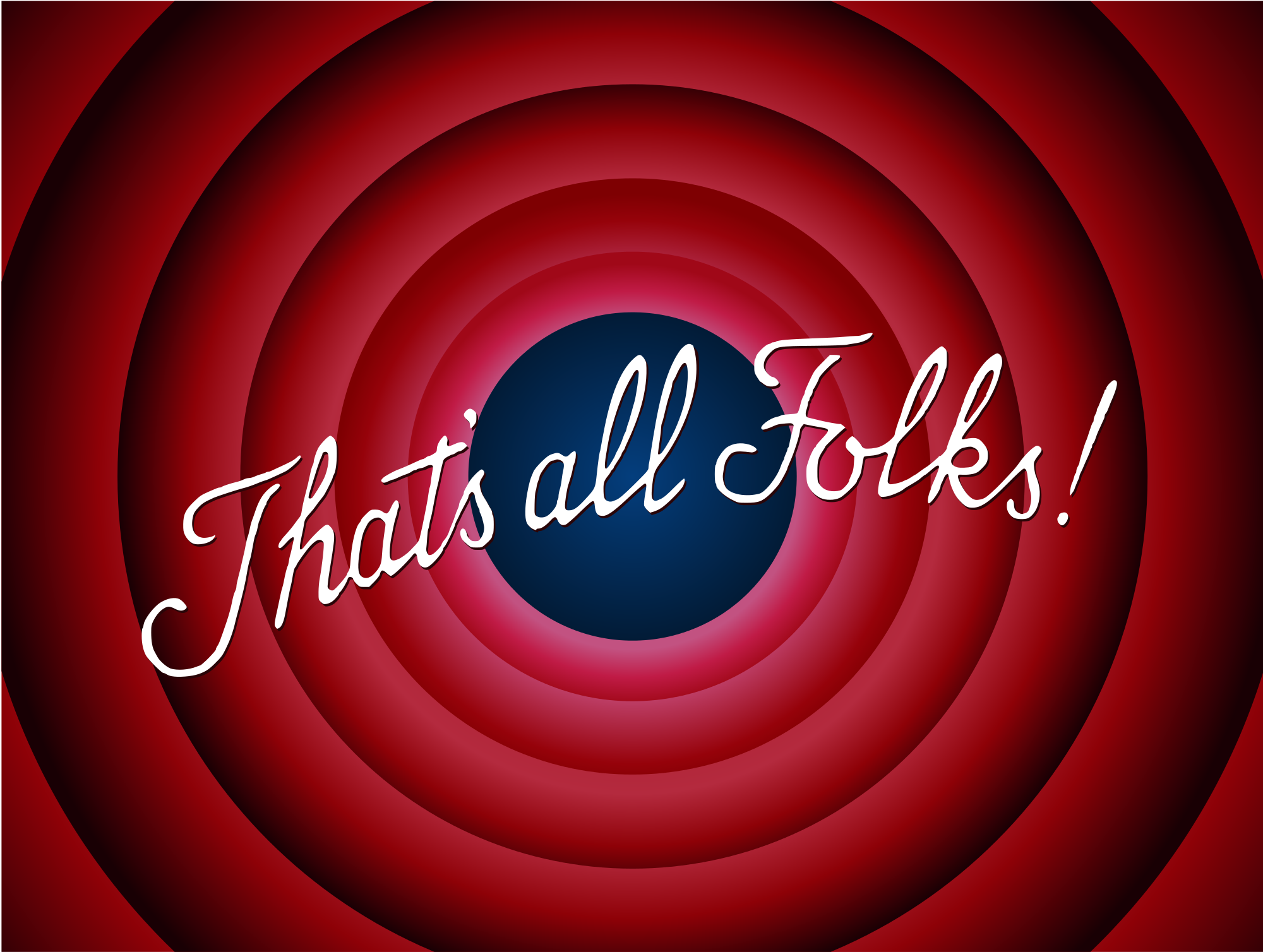
Thats All Folks Font - That's no digitized font as all a's and l's are different, but you will find similar fonts in the script section. Thats all folks contains 8 styles and family package options.